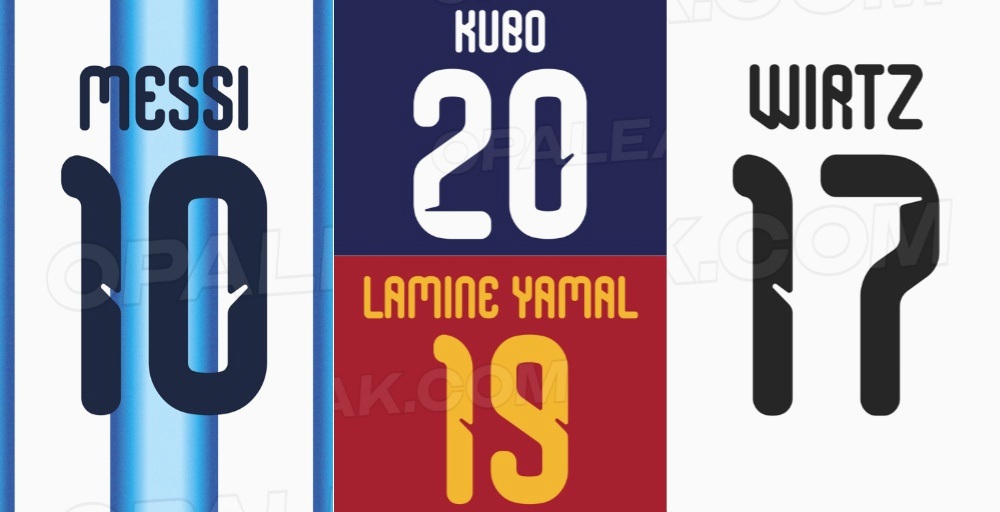
Adidas 2026 World Cup Home Kit Font Released
- Adidas 2026 World Cup Home Kit Font: Adidas has launched a unique, modern home kit font for the 2026 World Cup, featuring subtle cuts and rounded edges for a futuristic look.
- Exclusions: The Adidas 2026 World Cup home kit font will be used by all Adidas teams, except for Germany, Scotland, and Spain.
- Adidas 2026 World Cup Away Kit Font: Adidas will unveil a different font for the away kits, featuring a bold and clean design with sharp, angular lines, contrasting with the home kit font.
The Adidas 2026 World Cup home kit font has been launched, used by all Adidas teams except for Germany, Scotland, and Spain.
Adidas 2026 World Cup Home Kit Font
The Adidas 2026 World Cup home kit font introduces a unique, modern, and streamlined design. The numbers feature subtle cuts and rounded edges, creating a futuristic but highly legible aesthetic.
Player names are set in a tall, condensed typeface that complements the bold numbers while ensuring optimal visibility.
The back numbers feature ventilation holes in the upper area, in a similar pattern to the fabric of the authentic shirts.
This Adidas 2026 World Cup kit font is exclusive to home kits. Adidas is going to unveil a different font for the away kits, in line with its recent trend of providing distinct designs for each version.
Adidas 2026 World Cup Away Kit Font
The new Adidas 2026 World Cup away kit font features a bold and clean design with sharp, angular lines. It has a classic, blocky feel that is very different from the modern, rounded font that will be used on the home kits.